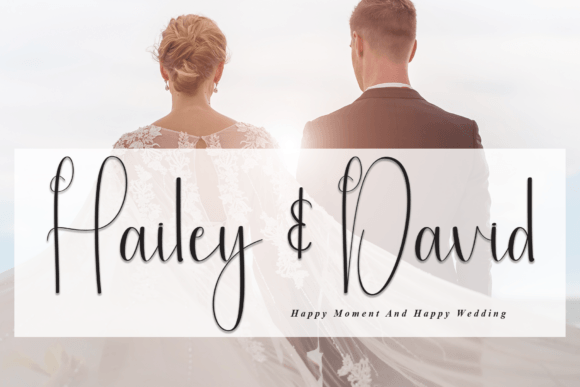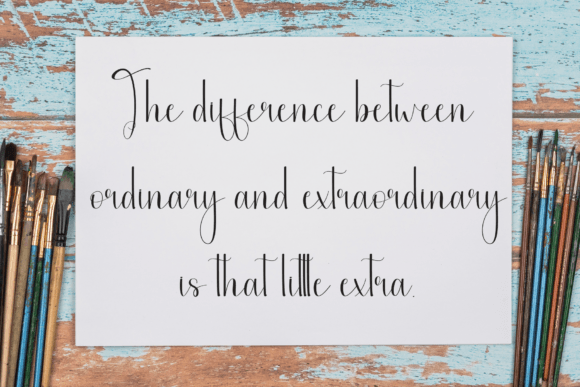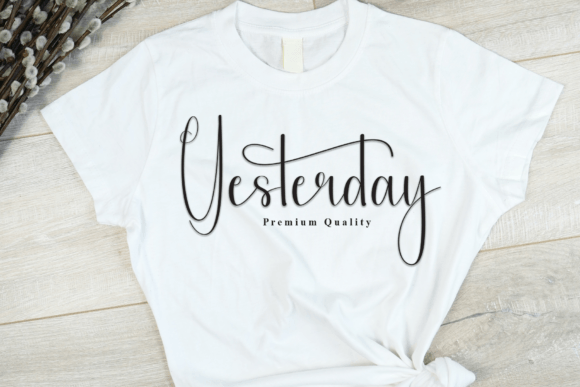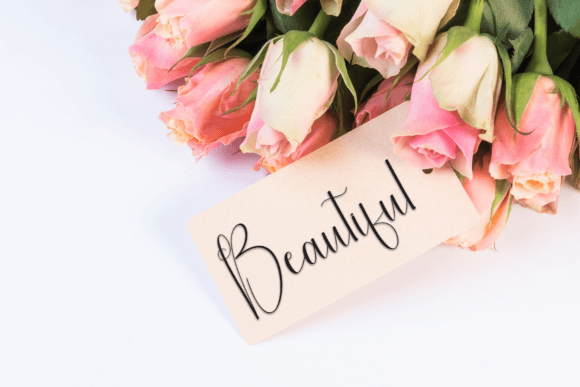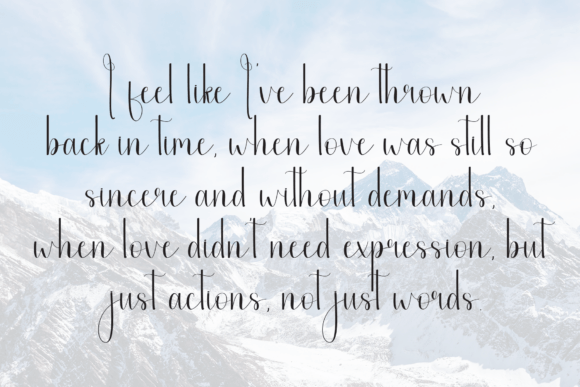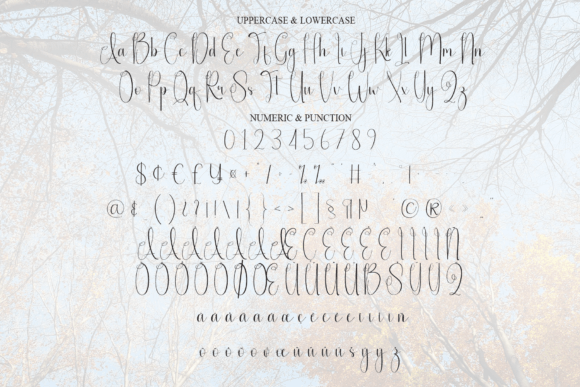
Getting Cozy with Autumn Font
There’s something special about sitting down with a warm cup of coffee, surrounded by colorful leaves, and feeling the crisp autumn air. It’s the perfect moment to get creative and bring new life to your projects. As designers, we’re always on the lookout for that special font that captures the essence of the season, and today, we’re excited to introduce you to the charming Autumn Font.
With its sweet and friendly handwritten display style, Autumn Font is the perfect addition to any design project that needs a dash of warmth and personality. Whether you’re crafting heartfelt wedding invitations, personalized cards, or simply want to add a playful touch to your next design, Autumn Font is sure to bring a smile to your face and a twinkle to your creations.
Autumn Font Key Features
- Font Family: Autumn Font is a script font family designed to evoke the feeling of autumn leaves.
- Unique Characteristics: Features intricate, hand-drawn designs with subtle texture and organic feel, perfect for creative and artistic projects.
Autumn Font Review
Overall, I’m quite pleased with the Autumn Font. It’s a beautifully crafted, elegant typeface that exudes a sense of warmth and coziness, perfect for autumn-themed designs or any project that needs a touch of seasonal flair. ✨ The font’s unique blend of script and serif elements gives it a distinct, sophisticated look that’s sure to impress.
One of the standout features of the Autumn Font is its excellent legibility, making it perfect for body text or headlines. The font also comes in a range of weights and styles, from light to bold, allowing for plenty of flexibility in your design. ✨ The font’s compatibility with various devices and platforms is also a major plus.
What Doesn’t Work So Well:
- ⚠️ Limited language support, which may be a concern for designers working with non-English clients or projects.
- ⚠️ Some users may find the font’s complexity and intricacy overwhelming, particularly when it comes to pairing with other fonts.
- ⚠️ The font’s aesthetic may not be to everyone’s taste, and some designers may find it too ornate or flashy.
Overall, I’d give the Autumn Font 4 out of 5 stars. While it’s not perfect, its unique charm and excellent legibility make it a great choice for the right project. With a bit of caution and planning, designers can harness the Autumn Font’s full potential and create truly stunning designs.
Getting the Most Out of Autumn Font
To get the most out of Autumn Font, use it in conjunction with warm and earthy color schemes, and pair it with images of fall leaves, pumpkins, or other seasonal elements.
Experiment with different font sizes, colors, and styles to create a unique and eye-catching design.
Autumn Font is perfect for:
- Creating fall-themed social media posts and graphics.
Alternative Fonts for Autumn Font
Pacifico is a beautiful, elegant font perfect for designs that require a touch of sophistication. It’s ideal for use in branding, invitations, and any other project where a sense of refinement is desired. Pacifico’s cursive script style is reminiscent of traditional calligraphy, making it a great alternative to Autumn Font for designs that need a more formal, vintage feel.
Comparison to Autumn Font: Pacifico has a more refined and elegant feel compared to Autumn Font, which has a more rustic and natural charm. While Autumn Font is perfect for designs that need a cozy, autumnal feel, Pacifico is better suited for designs that require a sense of luxury and sophistication.
Great Vibes is a modern, elegant font that’s perfect for designs that need a sense of energy and excitement. It’s ideal for use in branding, advertising, and any other project where a sense of movement and dynamism is desired. Great Vibes has a unique, handwritten feel that’s reminiscent of classic sign painting, making it a great alternative to Autumn Font for designs that need a more playful, modern feel.